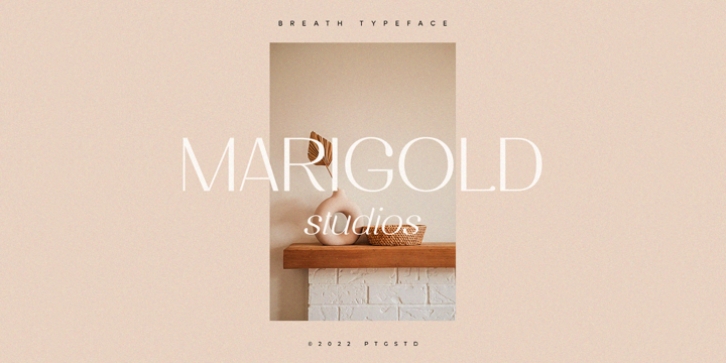
Breath PS Font Family was designed by Burhan Adiatma, and and published by pentagonistudio. Breath PS contains 1 styles and family package options.
Breath Is Classic Serif Character Inspired By Modern and Ligature Characters.